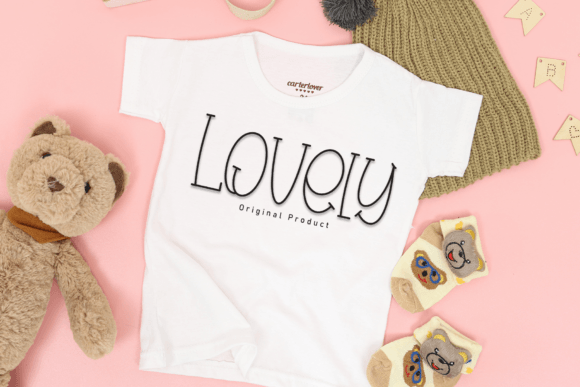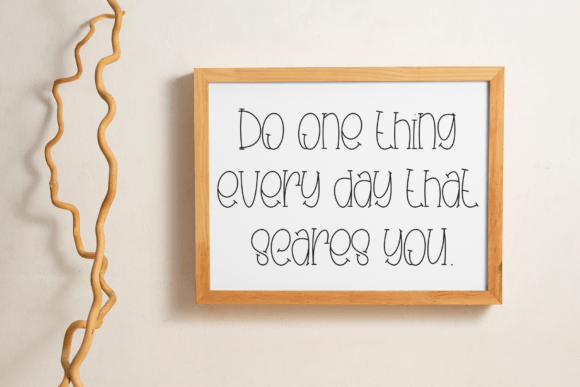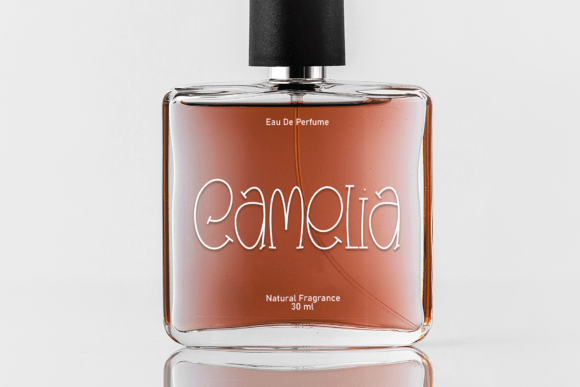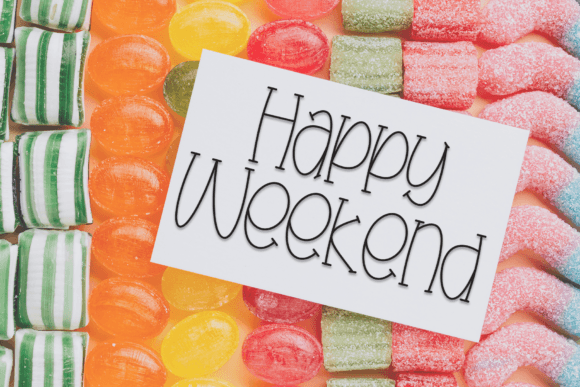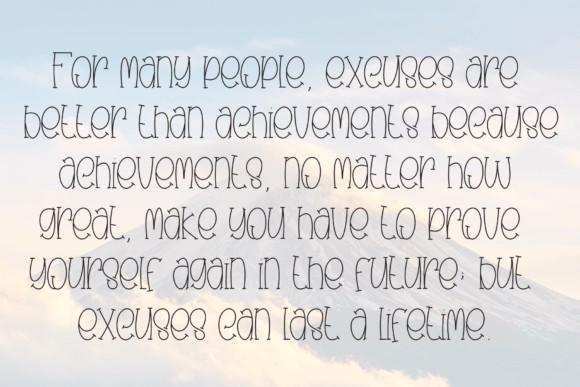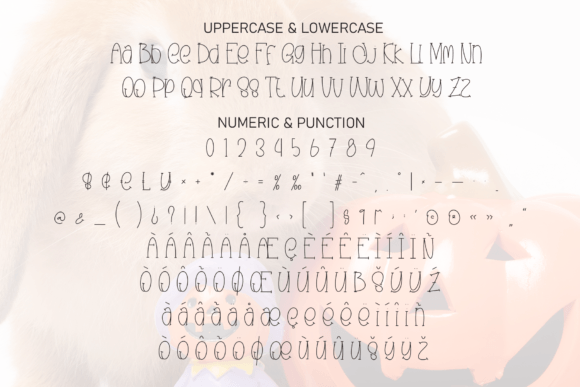
Introduction to Bunny Pumpkin Font
Have you ever stumbled upon a design that makes your heart skip a beat, and suddenly you’re envisioning an entire creative project come to life? That’s exactly what happened to me when I discovered the adorable Bunny Pumpkin Font. Its whimsical, handwritten style instantly captured my attention and left me wondering how I could incorporate it into my next design.
As designers, we’re constantly on the lookout for that special something to elevate our work and make it truly stand out. And that’s exactly what the Bunny Pumpkin Font offers – a unique, high-quality design resource that’s perfect for adding a playful touch to invitations, decorations, and more.
Key Features of Bunny Pumpkin Font
- High-quality design resource ideal for creative projects and illustrations.
- Unique, whimsical design featuring a bunny and pumpkin character on a transparent background.
- Perfect for use in digital and print design, including logos, posters, and greeting cards.
Honest Review: Bunny Pumpkin Font
I recently stumbled upon the Bunny Pumpkin Font and I must say it’s a delightful addition to my design resource collection. This adorable font is perfect for creative projects that need a playful touch.
What works well: ✨ The font is highly customizable and comes in a range of weights and styles, making it easy to use in various design contexts. The transparent background is also a bonus, allowing me to easily overlay the text on different backgrounds. The design is clean and simple, yet quirky enough to add visual interest to my projects.
Here are some of the font’s key features:
- High-quality design suitable for both digital and print projects
- Customizable weights and styles
- Transparent background for easy overlay
Limitations: ⚠️ While the font is generally well-designed, some users may find the letter spacing to be a bit inconsistent. Additionally, the font may not be suitable for projects that require a more formal or serious tone.
Overall, I’m thoroughly enjoying the Bunny Pumpkin Font and would highly recommend it to designers looking for a fun and versatile font to add to their creative arsenal.
To get the most out of the Bunny Pumpkin Font, use it for high-quality, creative projects such as invitations, party decorations, or social media graphics. You can also use the font to create transparent backgrounds for your designs. Additionally, be sure to check the font’s licensing agreement to ensure it’s suitable for your project.
The Bunny Pumpkin Font is commonly used for fall-themed designs, such as Halloween or Thanksgiving projects. It’s also used for spring and Easter-themed designs due to its cute and playful design. Additionally, the font is often used for food-related designs, such as bakery or restaurant logos.
Does the Bunny Pumpkin Font have a transparent background?
Yes, the Bunny Pumpkin Font has a transparent background, making it ideal for use on images and designs with complex backgrounds. The transparent background also allows you to easily overlay the font on top of other elements, creating a seamless and professional-looking design.